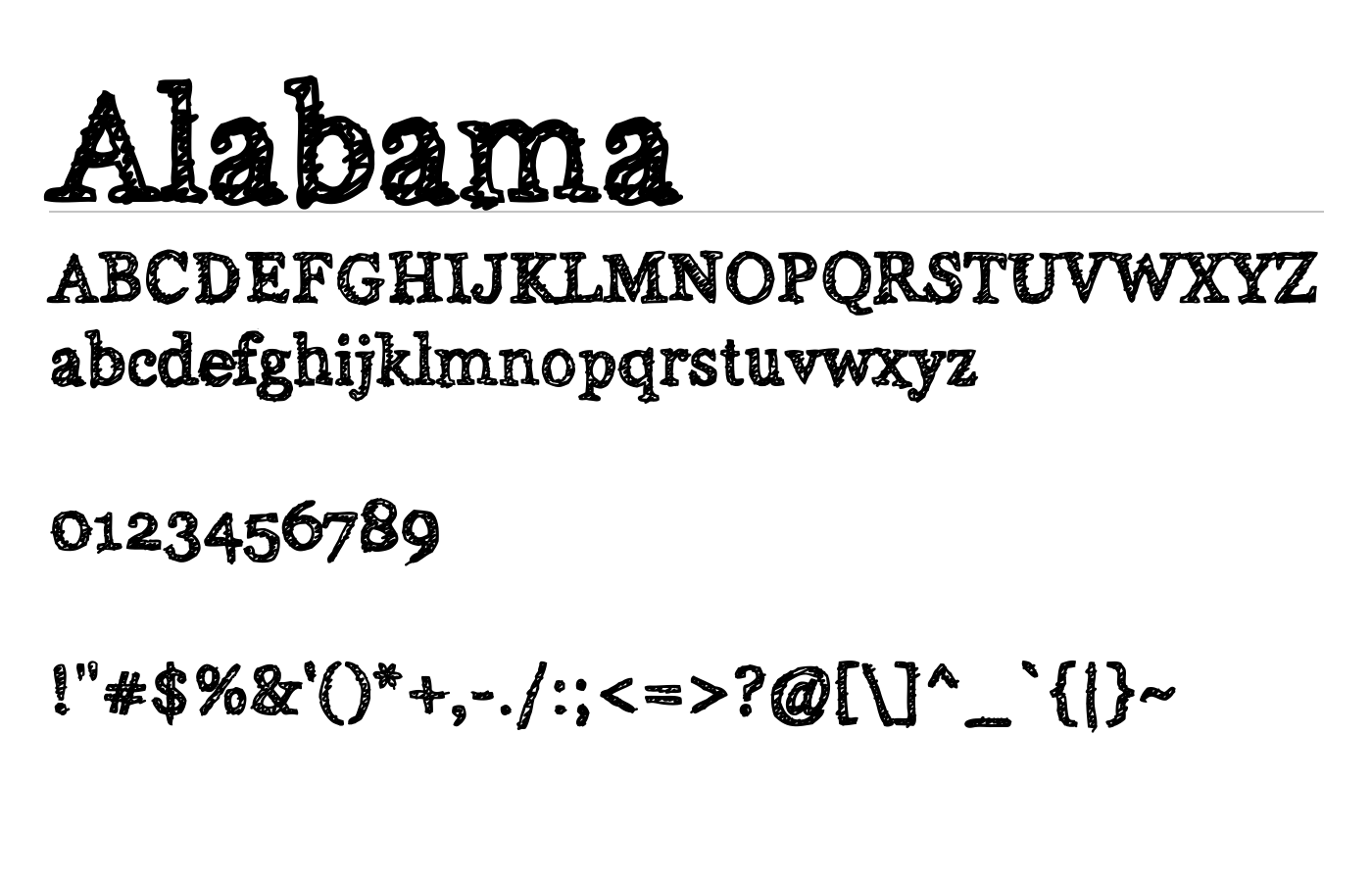
Alabama is a bold slab serif font with a textured, distressed look that gives it a vintage, handcrafted feel. Its uneven edges and rough stroke details make it perfect for designs that want to evoke a rustic or western-inspired atmosphere, ideal for posters, logos, and packaging with a rugged, nostalgic character. This font stands out in headline usage where its strong personality can grab attention and add charm.
Alabama Font
About Alabama Font
| Font family | Alabama Font |
| Designer | peqpe |